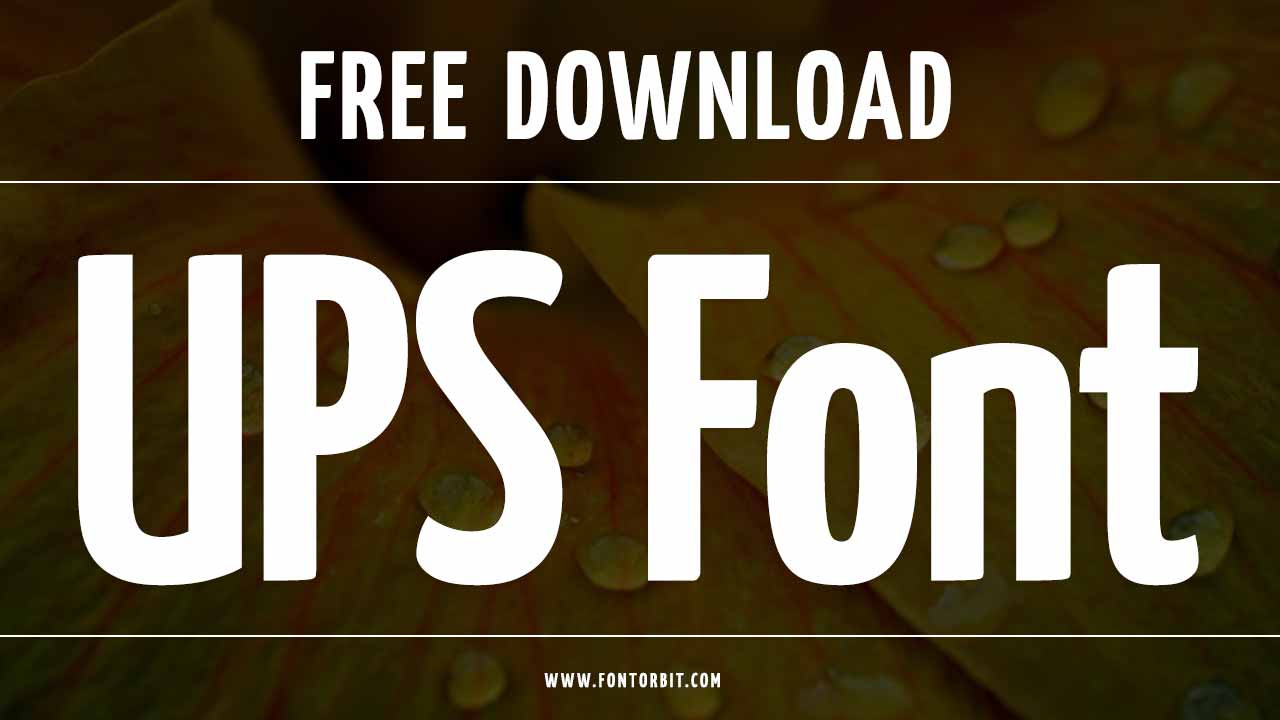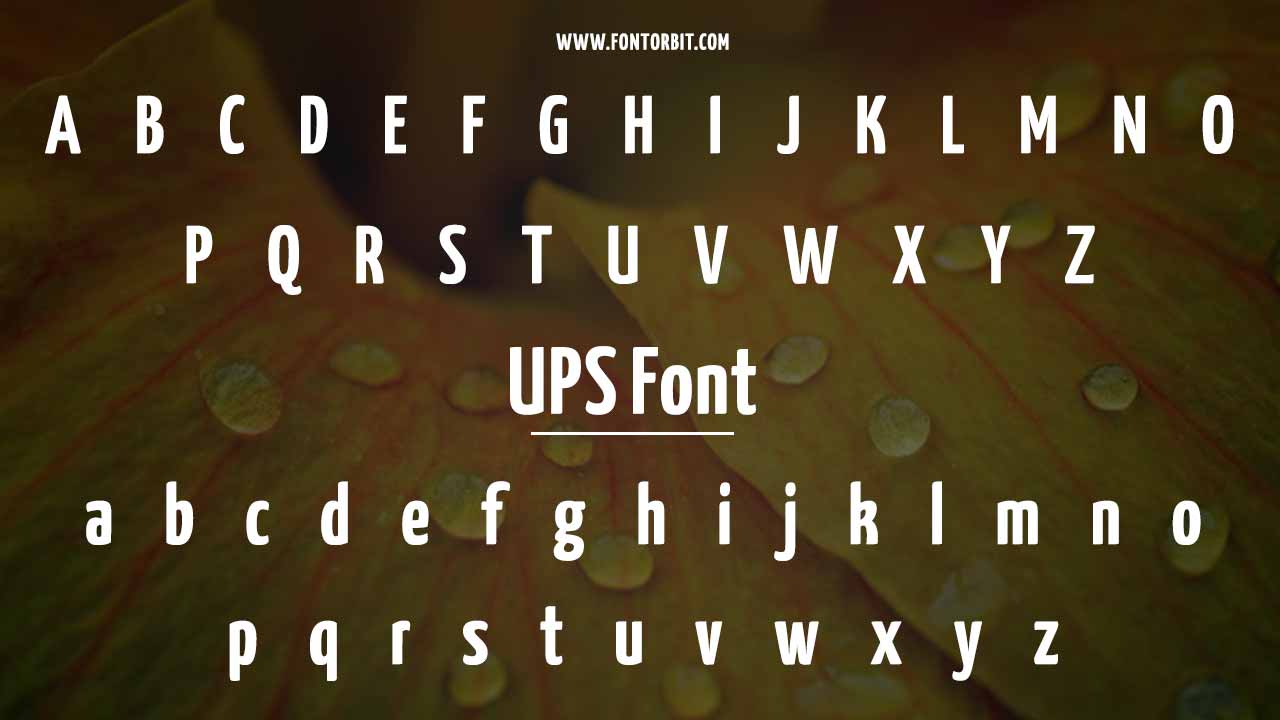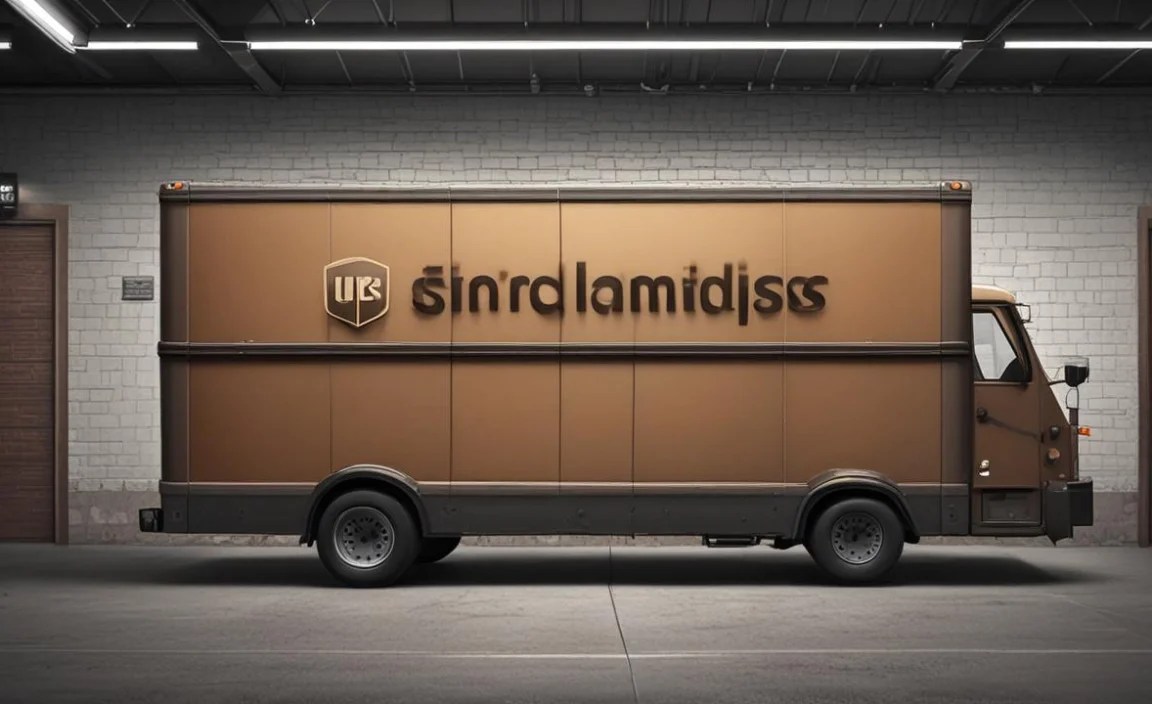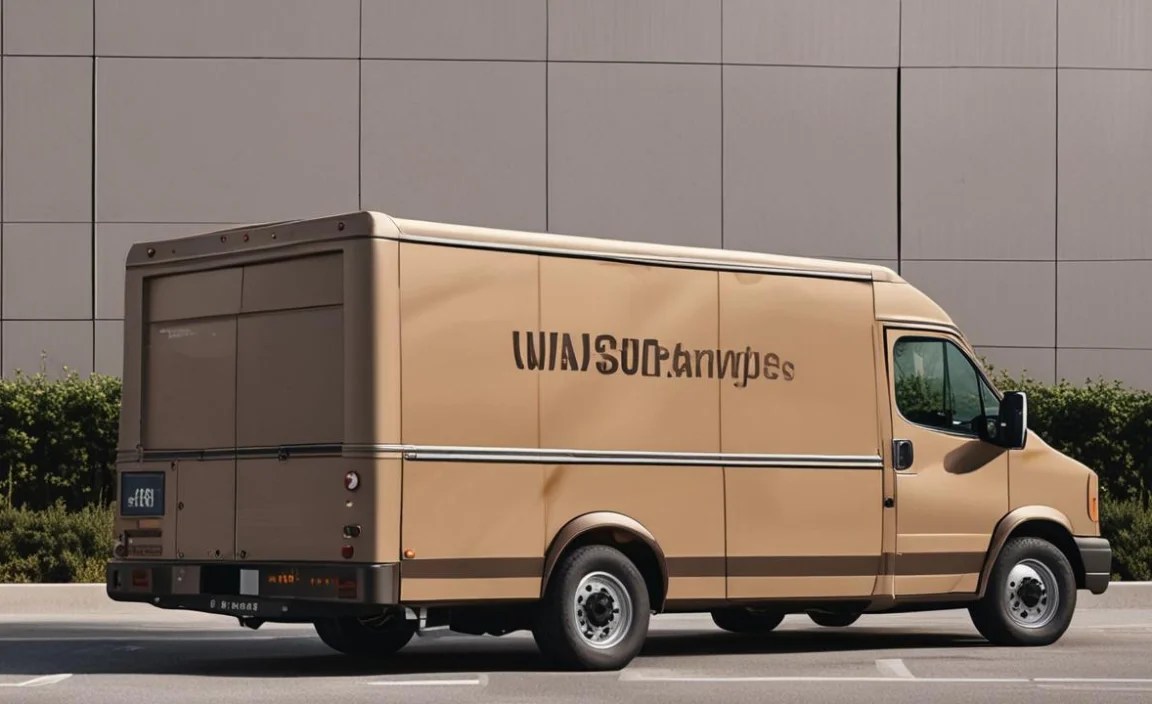
The UPS Font, representing United Parcel Service, is a key part of the brand’s visual identity, associated with speed, reliability, and efficiency in package delivery services. Designed specifically for UPS, the font used in the UPS logo is called UPS Sans. This custom font shares similarities with Yanone Kaffeesatz Bold, a freely available typeface. The UPS logo itself, first created in 1907 and updated several times, has used a shield emblem with the acronym “UPS,” symbolizing strength, security, and global reach.
The UPS brand uses this distinctive font across various marketing materials, from its website to printed packages and UPS store signage, establishing a consistent and recognizable look.
Type Of UPS Font (Font Family)
The UPS Sans font family consists of various styles that represent the company’s corporate identity:
- UPS Sans Regular: The standard weight for clean and readable text.
These styles are versatile and can be ideal across various applications like marketing materials, packaging, and digital content, ensuring that the UPS brand maintains consistency and professionalism.
Using Occasions Of The UPS Font
The UPS Font can be effectively used in:
- Branding and Logos: Ideal for creating logos or brand-related materials.
- Marketing Materials: Perfect for posters, flyers, and other promotional resources.
- Web Design: Great for creating a sleek look for logistics websites or delivery services.
- Postage and Shipping: Commonly used for labeling packages, envelopes, and documents.
- Retail and Stores: Essential for UPS store signage and marketing.
UPS Font Found In Use
This font is frequently seen in:
- Package Labels: For consistent, professional packaging.
- Logistics Branding: Emphasizing reliability and security.
- Websites: For e-commerce or delivery services looking to mimic the UPS aesthetic.
- Marketing: In advertisements, brochures, and promotional materials related to the delivery service.
Similar Fonts To UPS Font
If you’re looking for fonts similar to the UPS Font, you may also like:
- FF Dax: A clean, geometric sans-serif font suitable for modern branding.
- San Francisco: A versatile and widely used system font with a modern appearance.
- Agency Gothic: A classic, condensed sans-serif font for strong branding.
The UPS Font helps solidify the brand’s commitment to reliable service, embodying professionalism and trust. Its modern and clean look makes it suitable for any branding, from retail marketing materials to shipping labels. Whether you’re working on a post office project or designing package labels, the UPS Sans font provides a solid foundation for any logistics-related design.
3.What Is The UPS Logo Font Called? The font used in the UPS logo is UPS Sans, a custom typeface designed specifically for the brand.